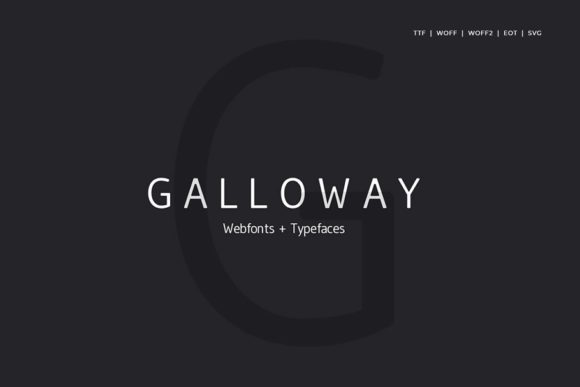
Unleash the power of simplicity with Galloway, the sans serif font designed to elevate your designs to new heights. Its slender, exquisite strokes exude elegance and sophistication, making it the perfect choice for creating captivating logos that leave a lasting impression.
Galloway's understated charm allows it to blend seamlessly into a myriad of design aesthetics. Whether you're crafting a minimalist logo for a modern brand or a timeless emblem for a traditional business, Galloway effortlessly adapts to your vision. Its clean lines and legible characters ensure that your message is conveyed with clarity and impact.
Step into a world where simplicity reigns supreme and let Galloway guide you to create logos that speak volumes. Its versatility extends beyond logos, making it an exceptional choice for branding, packaging, and any design project where a touch of sophistication is desired.
Embrace the beauty of simplicity and make Galloway your trusted font companion. Its effortless elegance and timeless appeal will transform your designs into works of art, leaving an unforgettable mark on your audience.